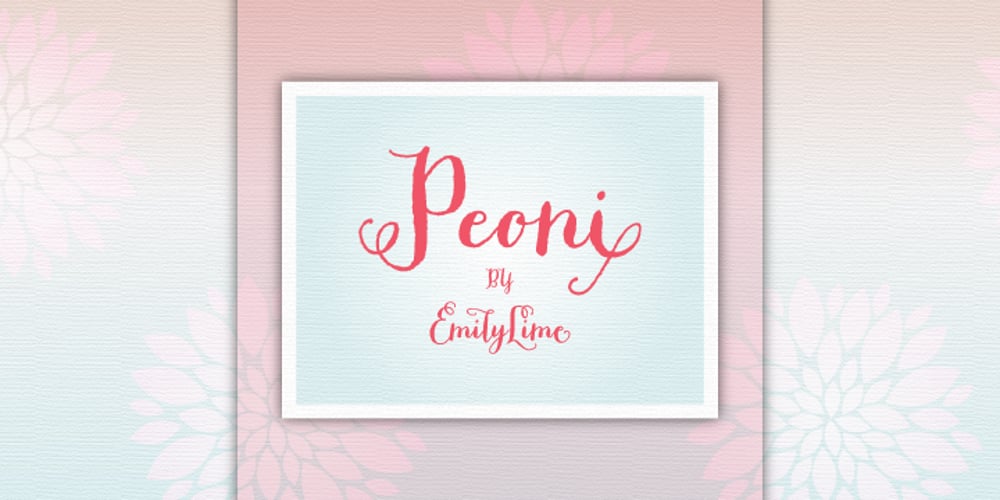
Peoni Pro Font Family was designed by Emily Conners and published by Emily Lime. Peoni Pro contains 2 styles and family package options. Peoni is sweet and quirky… and distinctly different. Her hand-lettered glyphs have retained their original textured appearance for an even more authentic custom-lettering feel. With over 1200 glyphs, Peoni is robust and full of open-type features. She’s designed to select the most ideal characters as you type. But feel free to make changes via your open-type panel, glyphs panel or character map. Have fun with it! There are plenty of options to allow you to create something truly unique and special. Peoni’s Open-Type features include: Stylistic Sets*, including 6 different Caps Styles Contextual Alternates Standard Ligatures Discretionary Ligatures Swashes Contextual Swashes Tabular Numbers Proportional Old Style Numbers Extras- Stylized words (i.e. and, the, from, etc), Roman Numerals (I, V and X), Ordinals (1st, 2nd, 3rd) *Stylistic Sets (ss01-ss18) & alternate glyphs aren’t accessible with all programs. If your design software doesn’t support open-type, you may need to use your computer’s character map to access other characters.